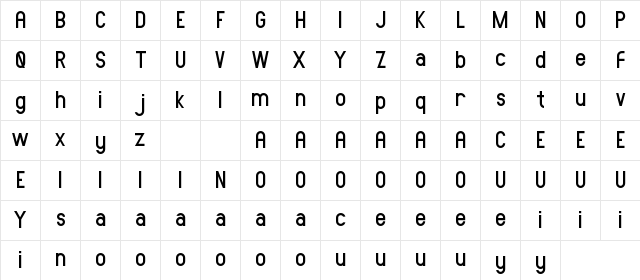
AMORICA SANS DEMO Regular
| Foundry | Edric Studio |
| Designer | M Nouval |
Design Context for AMORICA SANS DEMO Typeface
AMORICA SANS DEMO is a composed and adaptable typeface that performs quietly and consistently across a wide range of design contexts.